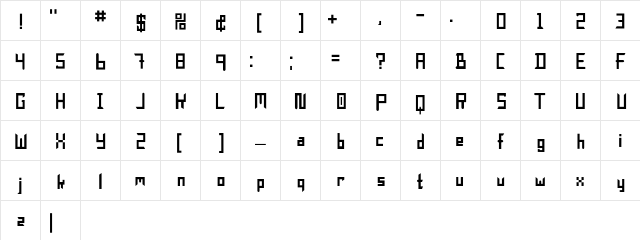
NeoTheo Regular Free Font
NeoTheo Regular
Design Context for NeoTheo
NeoTheo is a composed and adaptable typeface that performs quietly and consistently across a wide range of design contexts.